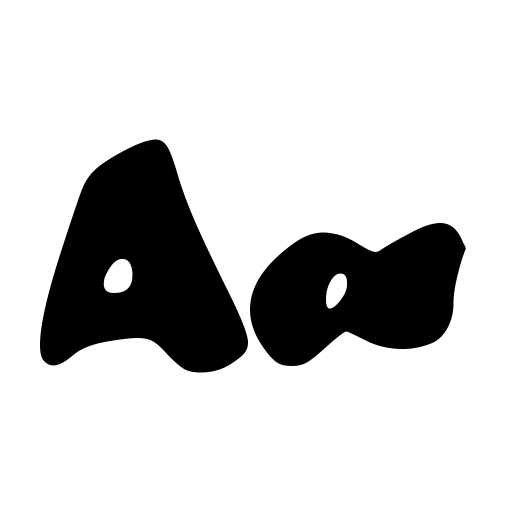
Cocwit is a bold, playful sans serif font with a chunky, organic feel and quirky irregular shapes that give it a hand-crafted character. Its heavy weight and tight spacing make it ideal for fun, eye-catching headlines, logos, or branding that seeks a creative, informal, and approachable vibe. This distinctive style works especially well for projects aimed at younger audiences, casual brands, or artistic ventures looking to stand out with personality.
c Cocwit Font